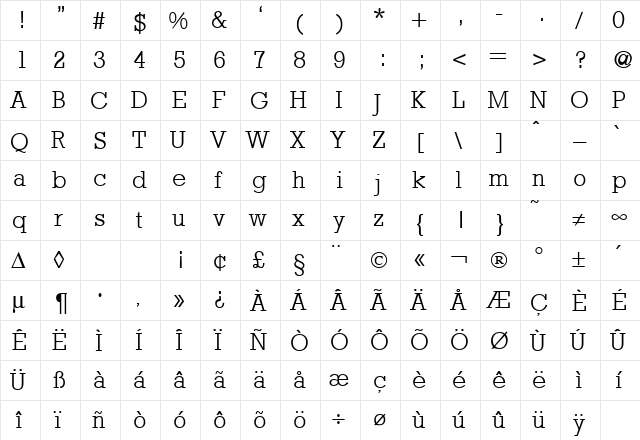
RambaultLight Regular Font Preview
RambaultLight Regular
Design Context for RambaultLight Typeface
RambaultLight offers clean, dependable letterforms without strong stylistic allegiance, making it a practical choice for designers who need flexibility. The delicate stroke weight brings airiness and refinement to layouts.